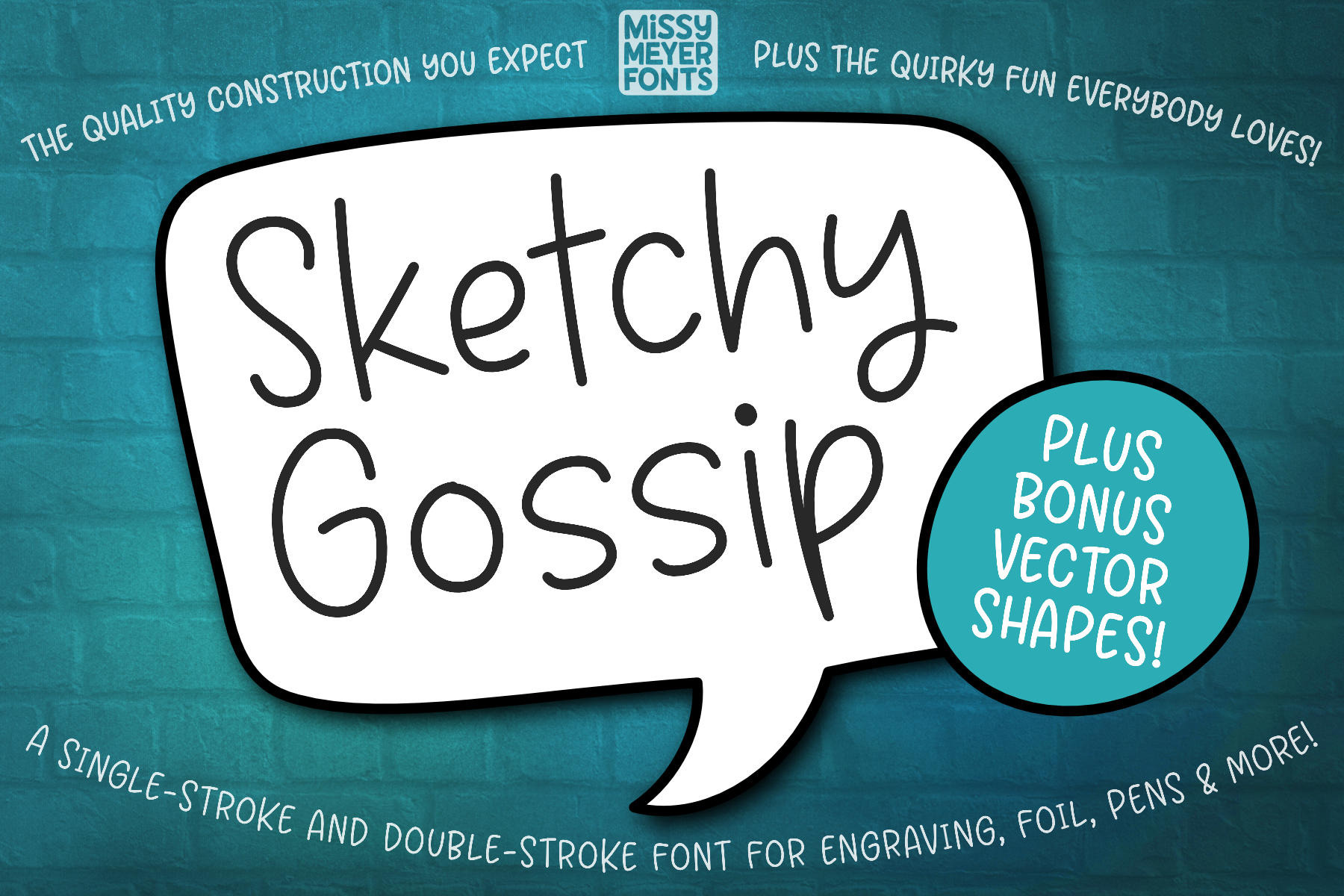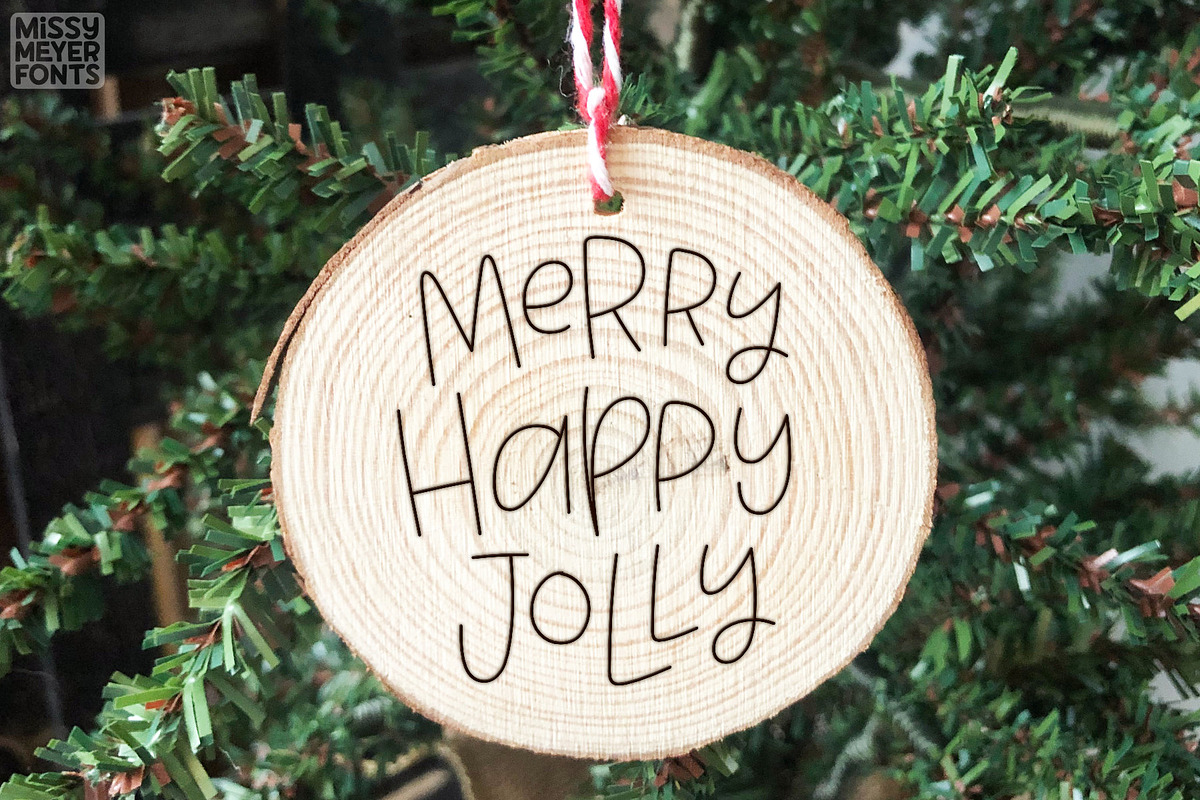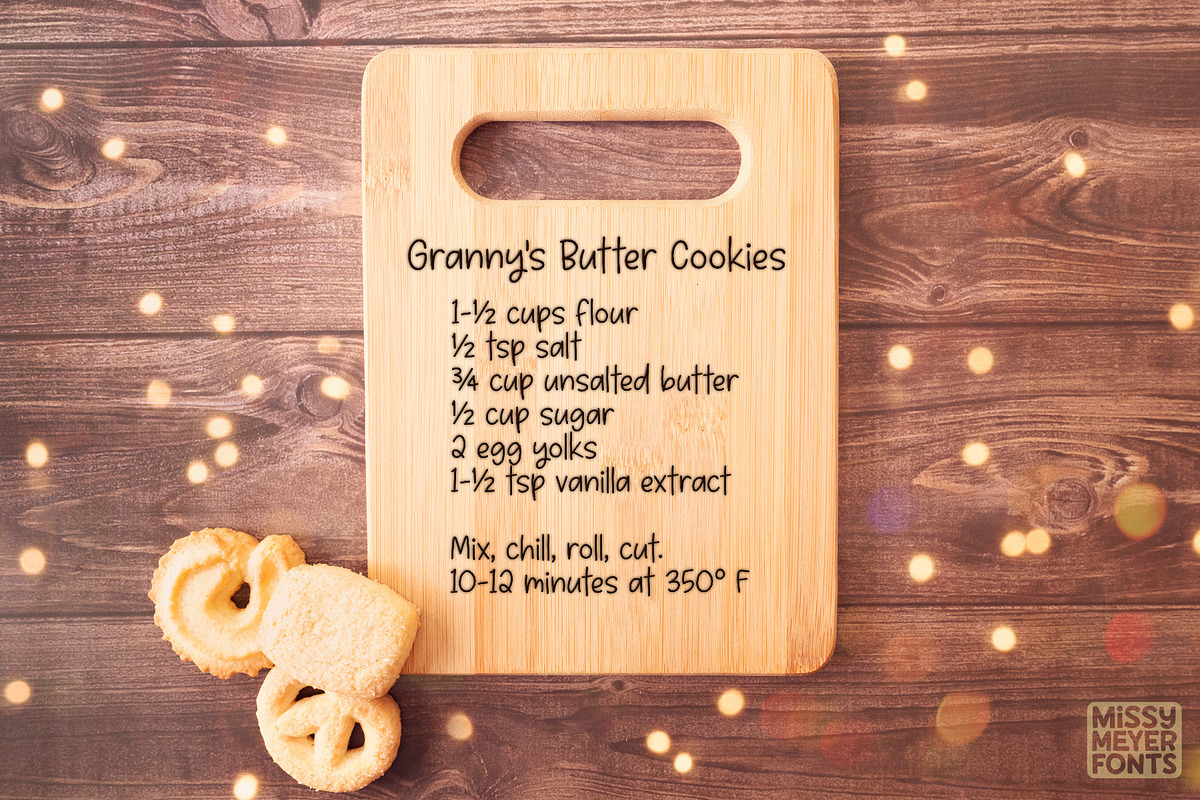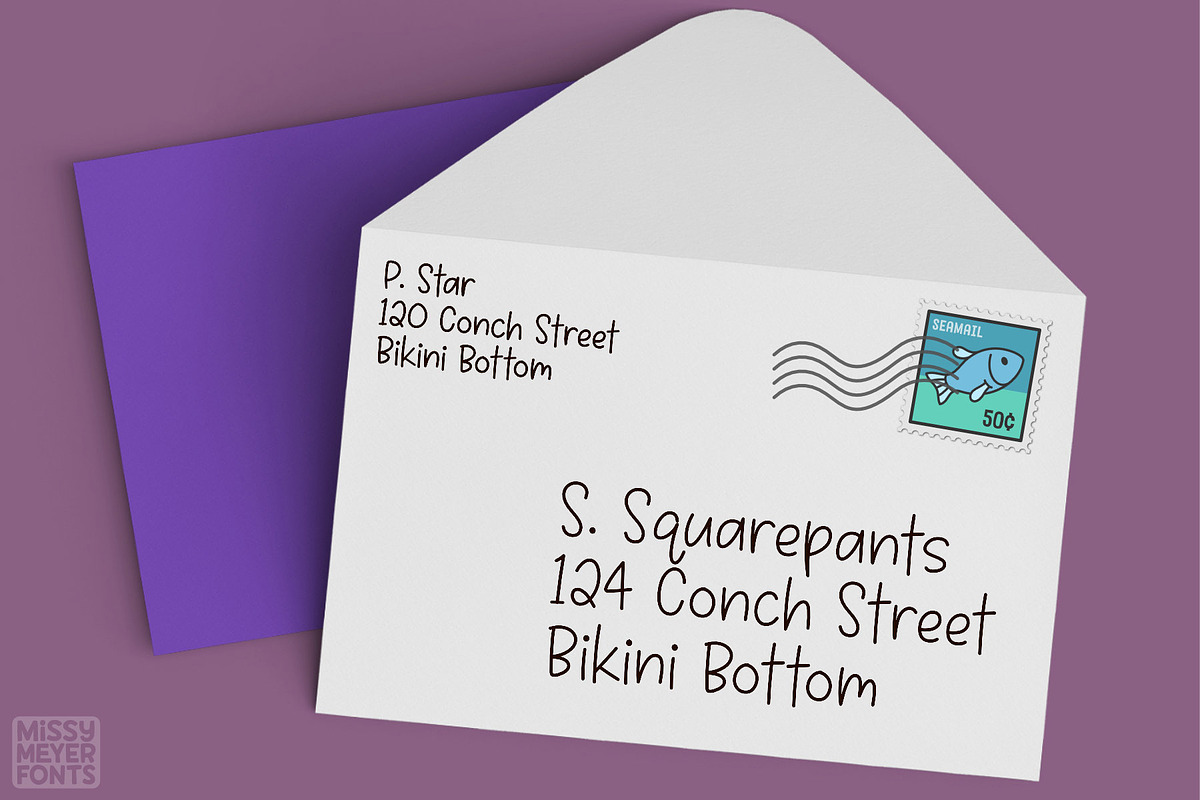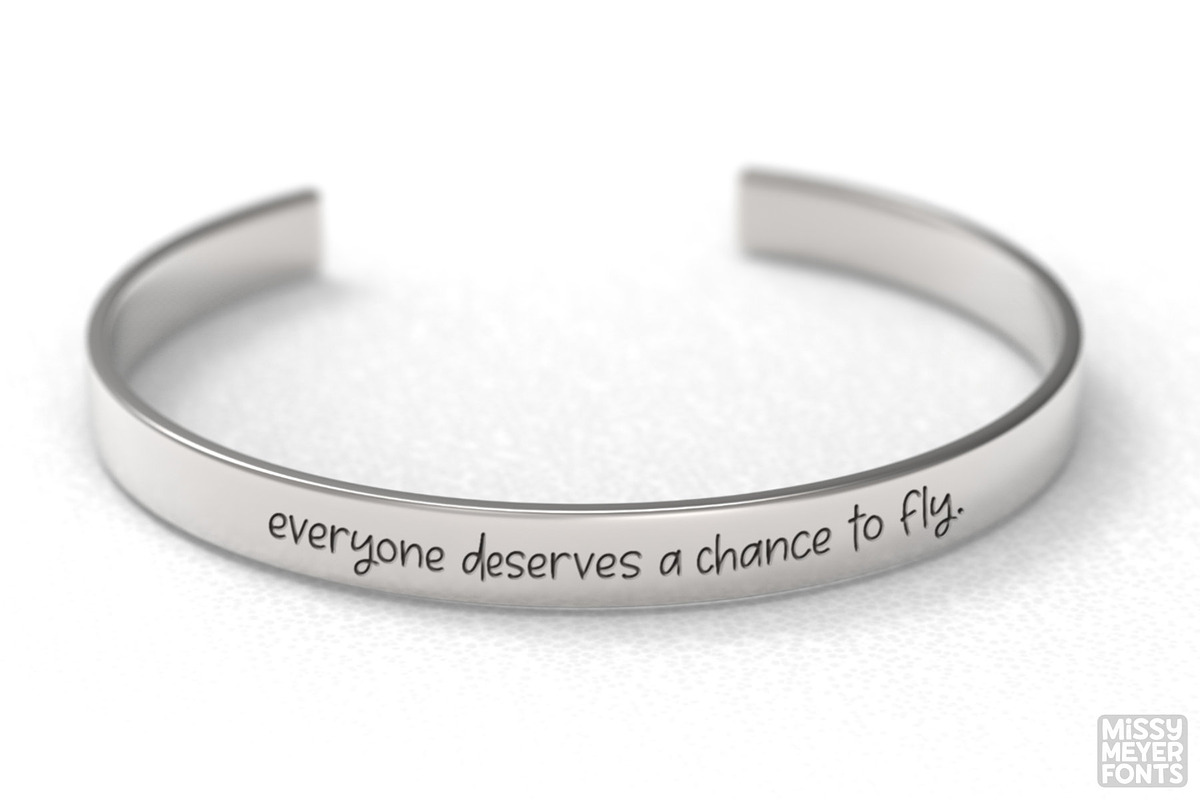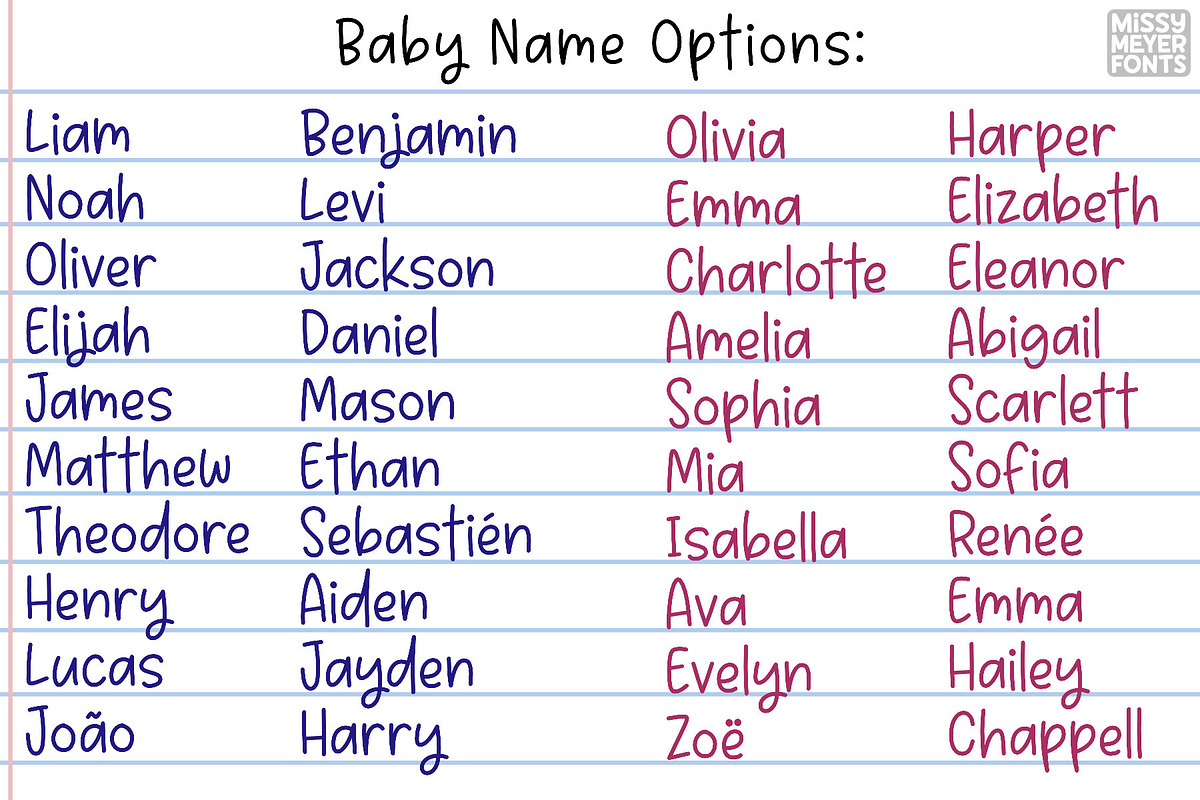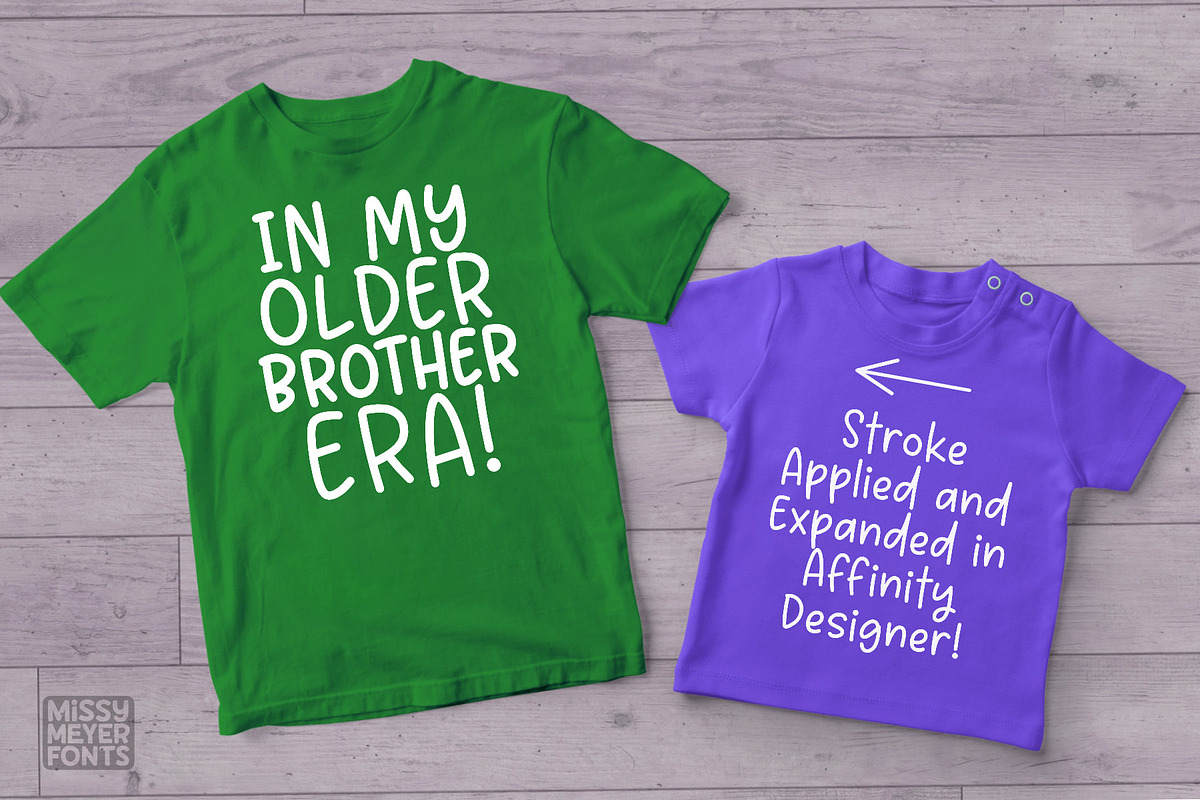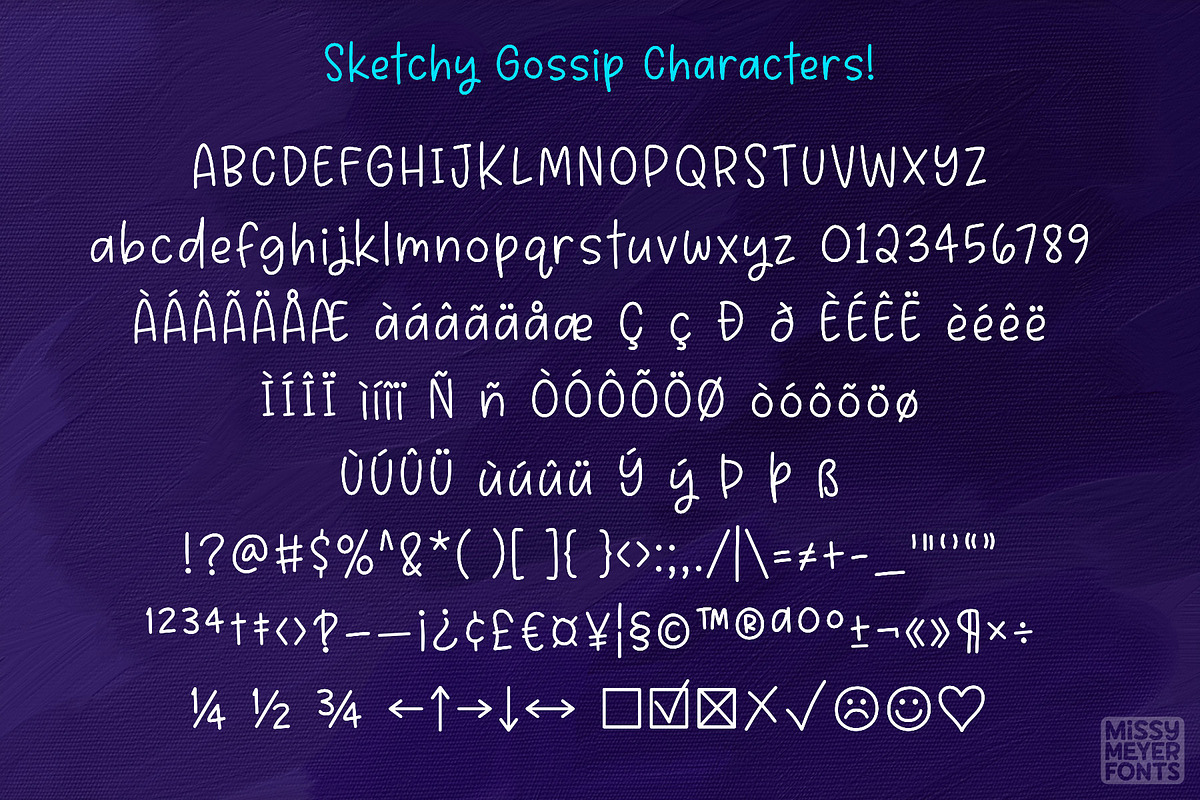
Sketchy Gossip: a single line font!
SKETCHY GOSSIP is a single-line font built from my "Juicy Gossip" outline font. It has a fun rounded handwriting style that works for tons of casual projects, from greeting cards to jewelry to cutting boards!
The font contains the full "Basic Latin" 95-character set (A-Z, a-z, 0-9, lots of punctuation; basically everything that appears on an English-language keyboard), as well as the full 96 "Latin-1 Supplemental" character set for language support, some extra punctuation, and a few handy arrows and shapes.
Languages supported: English, Dutch, French, German, Icelandic, Irish, Italian, Portuguese, Norwegian, Spanish, Swedish, and more!
I'm also including the SVG of vector bonus objects that comes with the original Juicy Gossip. It's a bunch of hand-drawn banners, ovals, speech balloons, and other fun shapes for your designs.